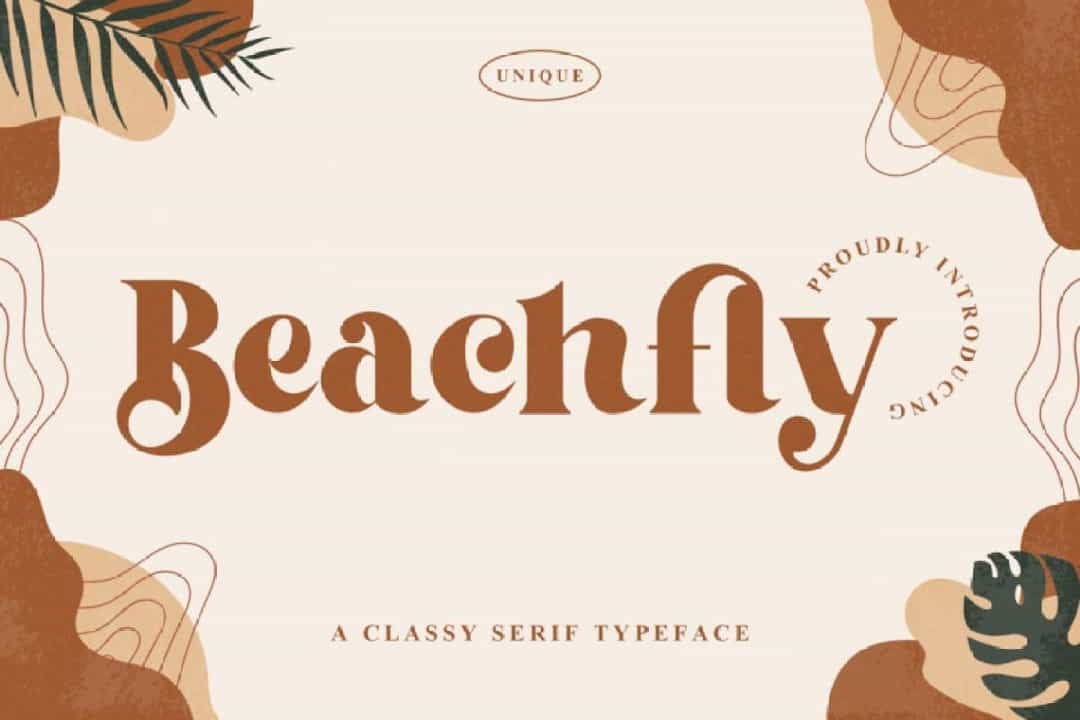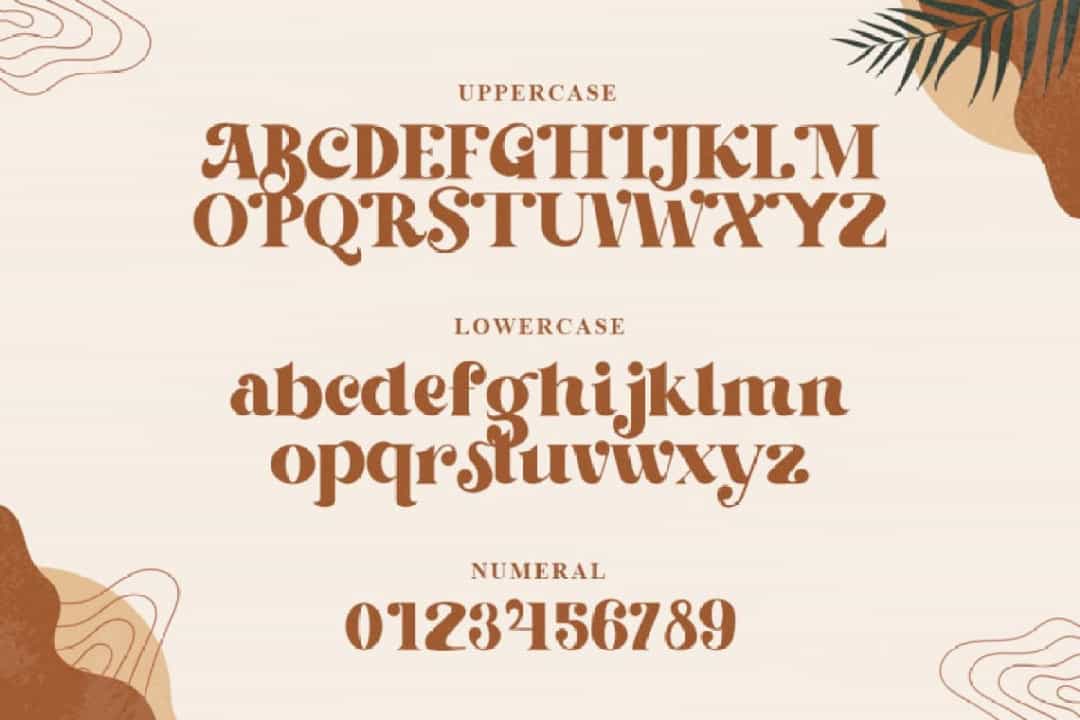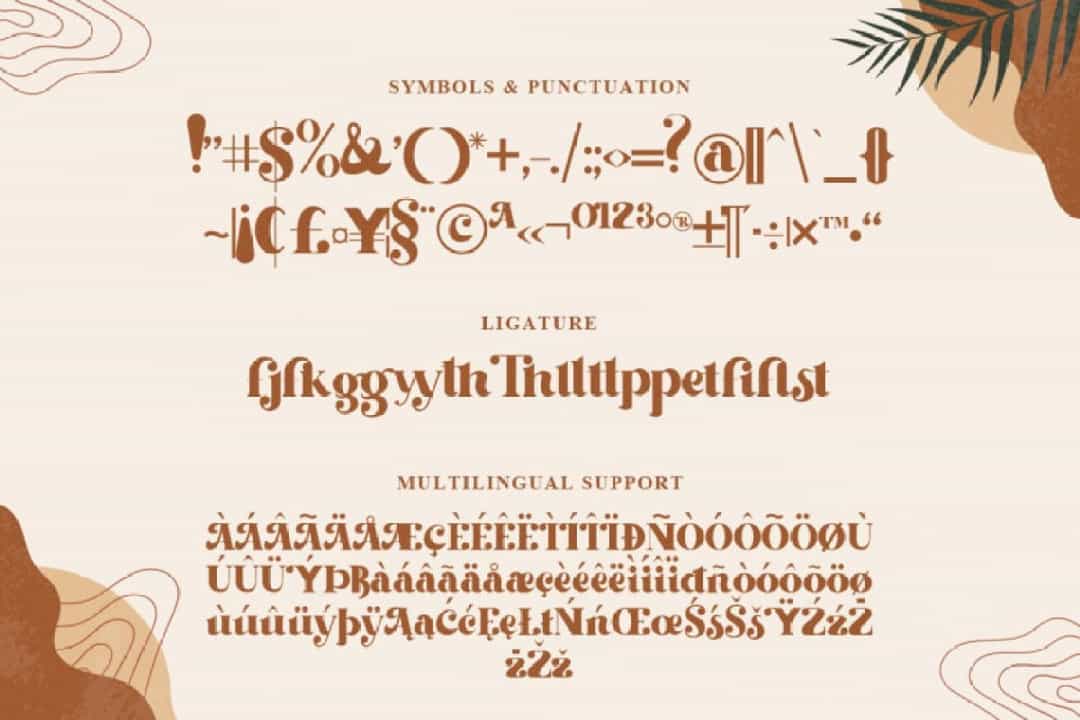
Discover Beachfly Font, part of the Serif collection—a versatile and unique font perfect for adding a personal touch to your projects. Download it for free and enjoy crafting designs with style, from invitations to social media posts. This font is available exclusively for personal use, giving you the freedom to create without limits. Unlock your creativity with Beachfly Font today!
If you are trying to find an attractive font that will make any task enjoyable and lively, then the Beachfly Serif font will serve you best. Applying cute, timeless and vintage looks to it, it makes it unique, suitable for various uses whether for big or small projects. A beautiful font suitable for use in wedding invitations, social media posts, greeting cards and so on.